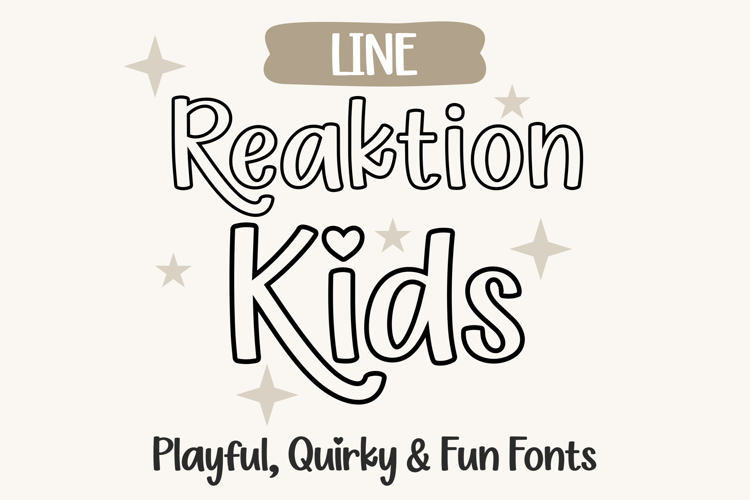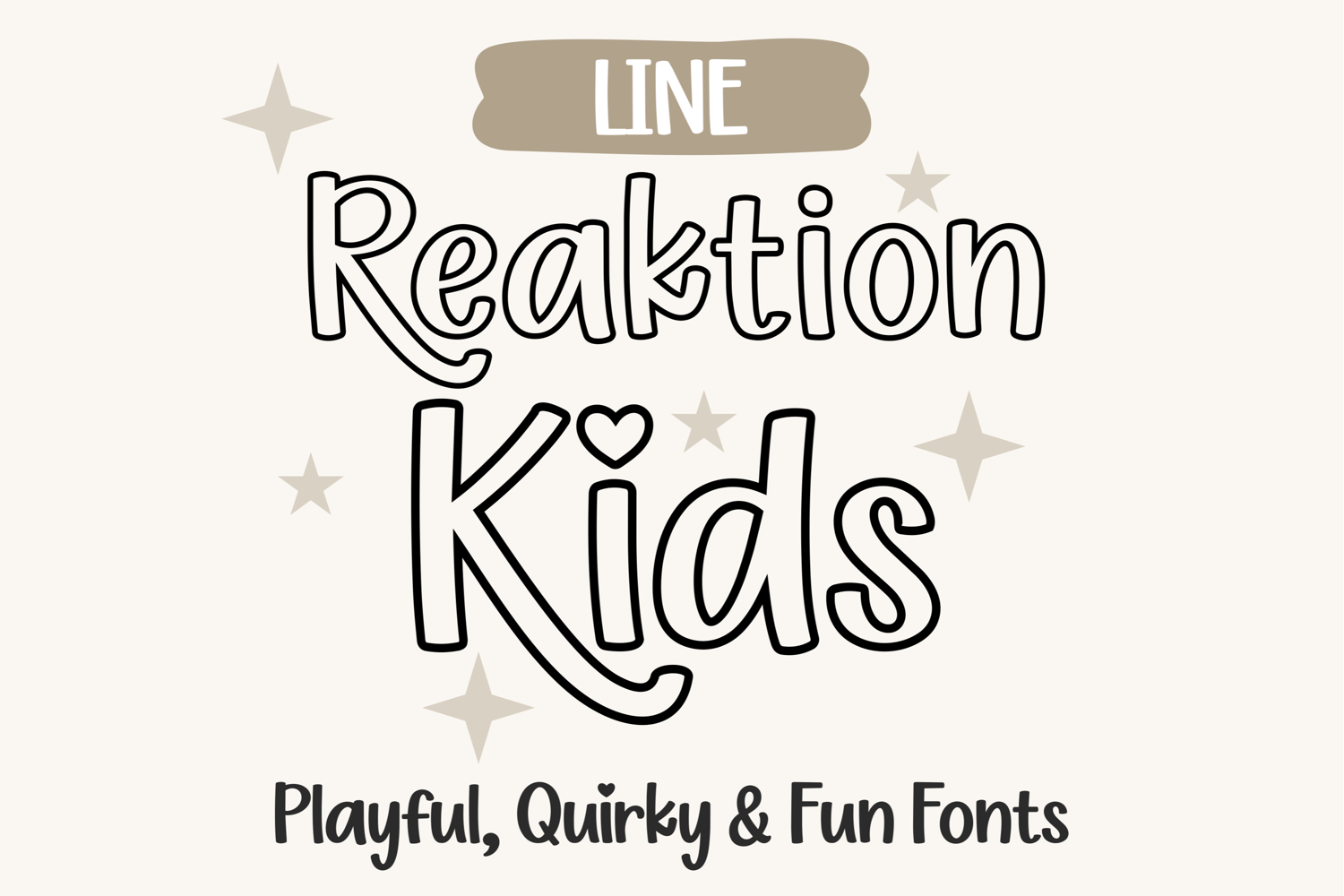
Reaktion Kids Line Playful Outline Kids Font
Reaktion Kids Line is a playful outline-style handwritten font created especially for kids designs and fun creative projects. With clean single-line strokes and rounded letterforms, this font has a light, cheerful feel that works beautifully for coloring projects, printable activities, stickers, and layered designs.
The line style makes Reaktion Kids Line perfect for outlines, tracing activities, coloring pages, and modern kids artwork. It also pairs wonderfully with bold or filled fonts to create depth and contrast in multi-layer designs. The heart-dot alternates for the letters “i” and “j” add a sweet and whimsical touch that enhances names, quotes, and playful phrases.
This font is ideal for children’s t-shirts, classroom materials, nursery decor, party graphics, posters, digital illustrations, and creative lettering projects. Its friendly shapes and clear outlines make it easy to read while keeping a fun and imaginative personality.